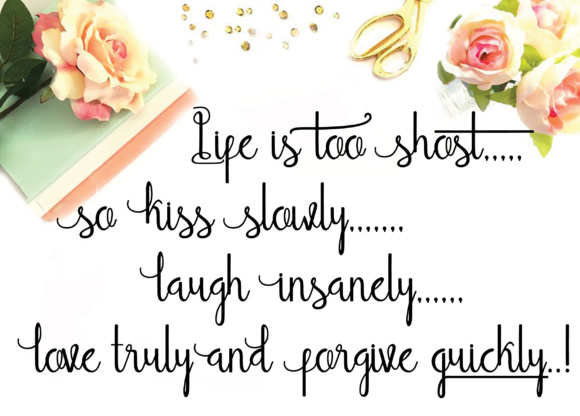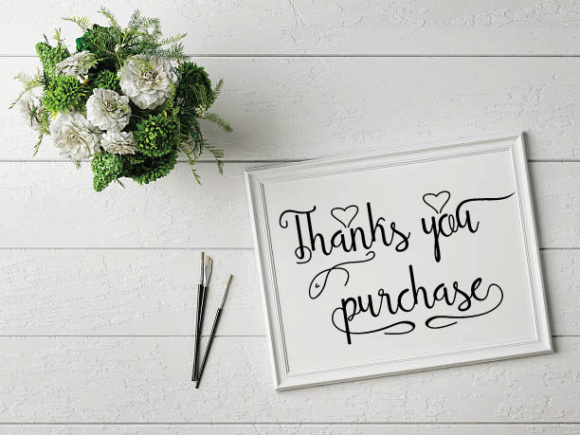
Heppy Holliday Font
About Heppy Holliday Font
The Holliday is a beautiful calligraphy script. It has a modern style and unique forms of calligraphy.
It’s perfect for every design that needs a natural handwritten typeface.